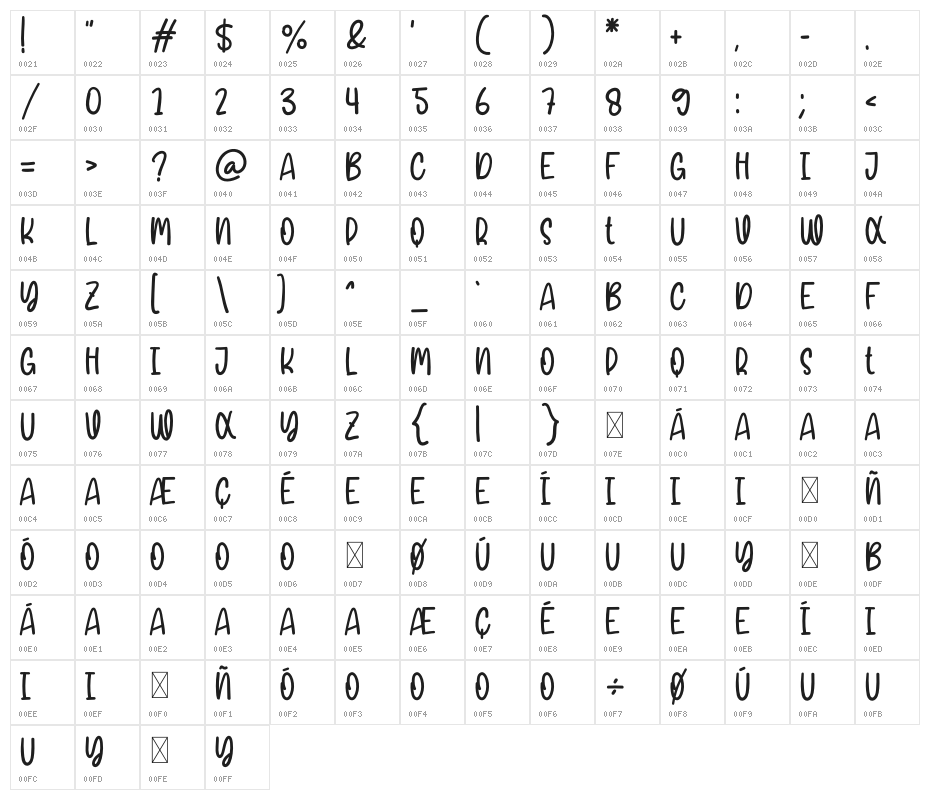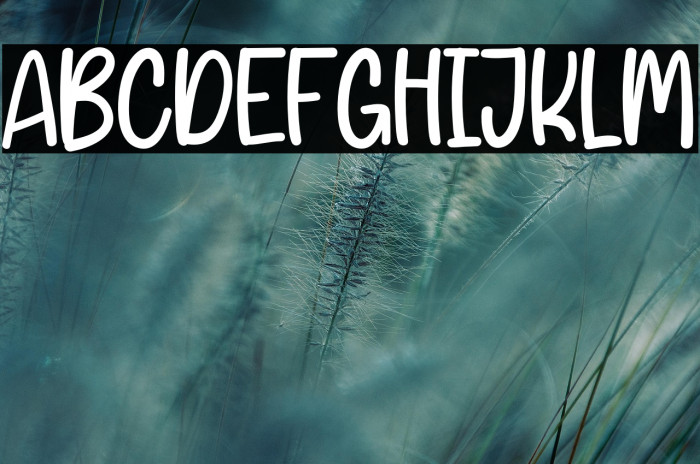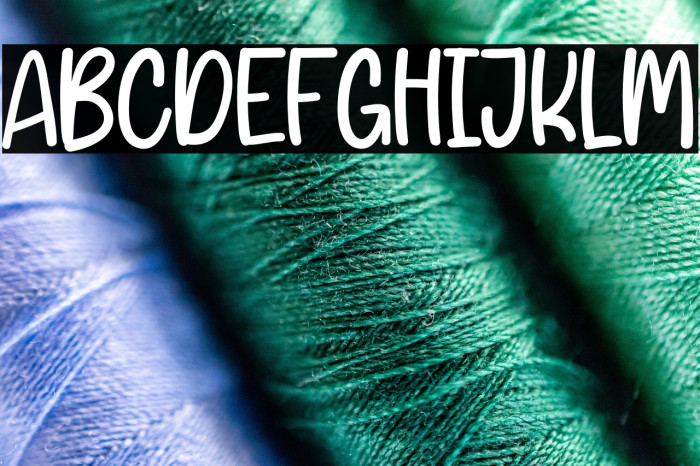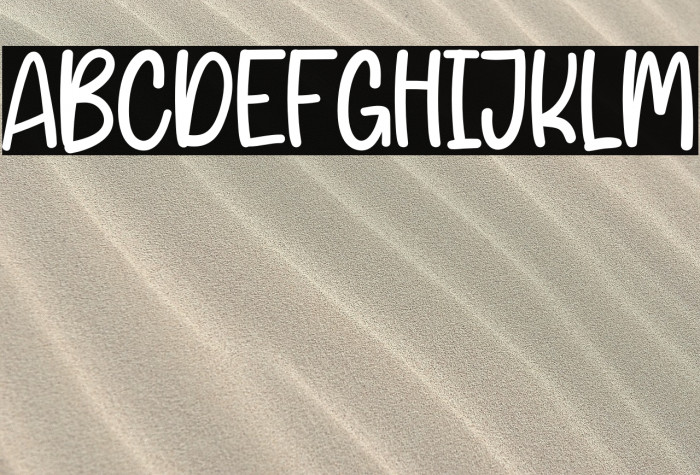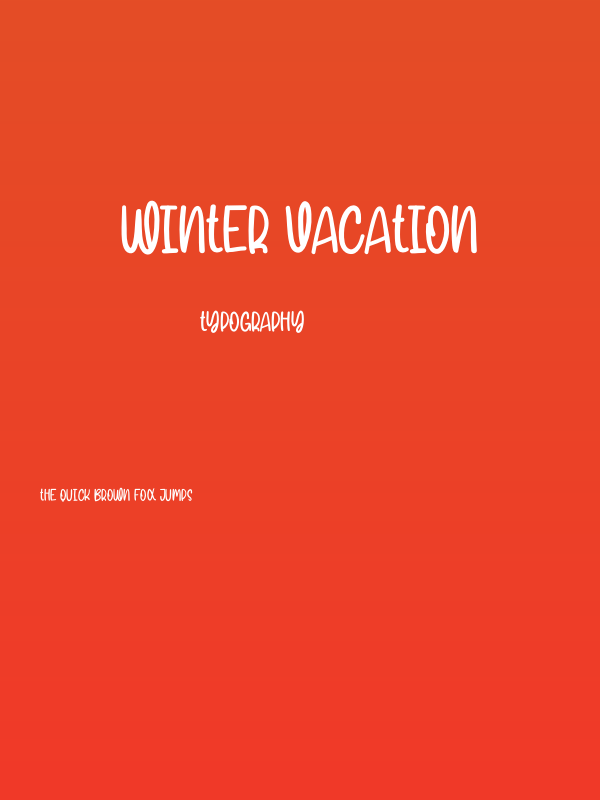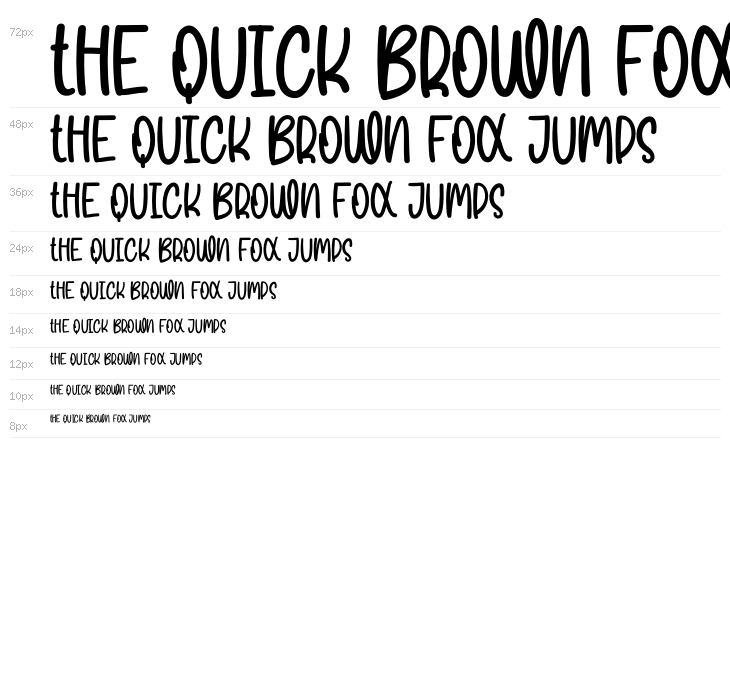
Winter Vacation Font
Winter Vacation Description
A playful, handwritten font with rounded edges and a casual style, suitable for informal and creative projects.
Overall StyleCasual
Proposed ProjectsGreeting cards, children's books, casual branding.